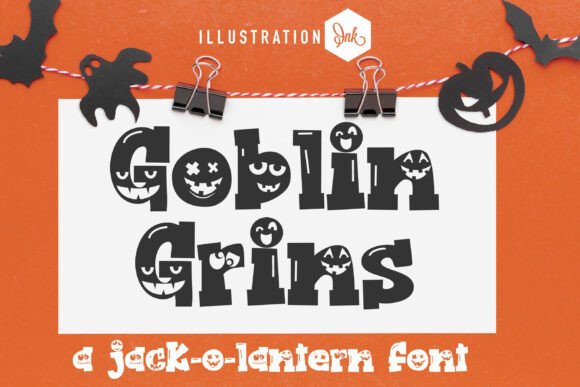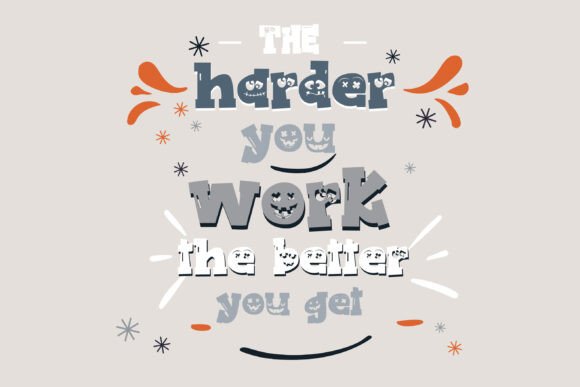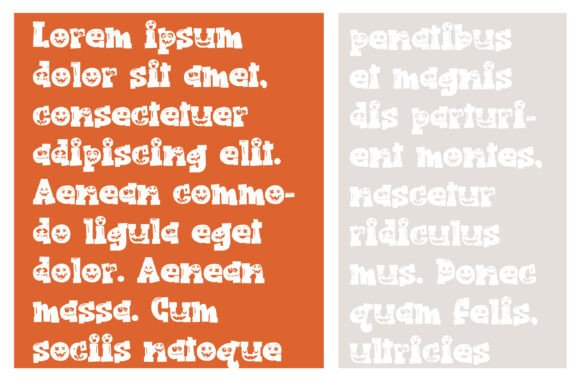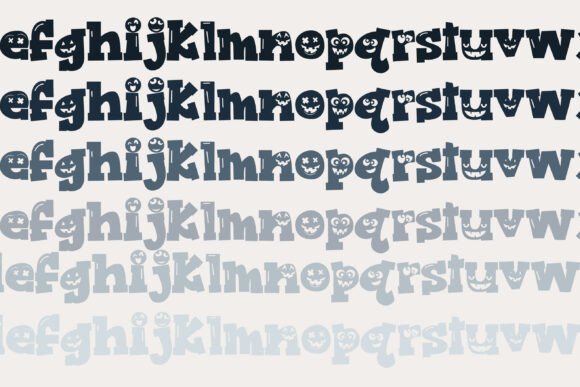
Goblin Grins Font: A Playful Halloween Display Font for Cricut & Crafts
About the Goblin Grins Font
The Goblin Grins Font offers a perfect balance of form and function for your design needs. This hand-crafted serif sports jack-o-lantern faces throughout.
Goblin Grins is ideally suited for headlines, short text blocks on posters, and branding elements where a playful, slightly spooky aesthetic is desired. Its whimsical nature makes it perfect for Halloween-themed projects, children’s books, or brands targeting a younger demographic with a fun, slightly mischievous personality. Avoid using it for body copy or long paragraphs; the unique character shapes will quickly become visually overwhelming.
Pairing Goblin Grins with a clean sans-serif like Open Sans for body text provides a strong contrast and excellent readability. For a more sophisticated pairing that retains some of the playful energy, consider using a slightly more formal serif like Garamond or a modern geometric sans-serif such as Futura for supporting text.
The font’s core personality is undoubtedly playful and bold, yet maintains a friendly rather than menacing feel. Its handcrafted nature gives it a charming, slightly informal character, making it less suitable for projects requiring a high degree of formality or sophistication.
Goblin Grins Font Usage Examples
Goblin Grins Font Example